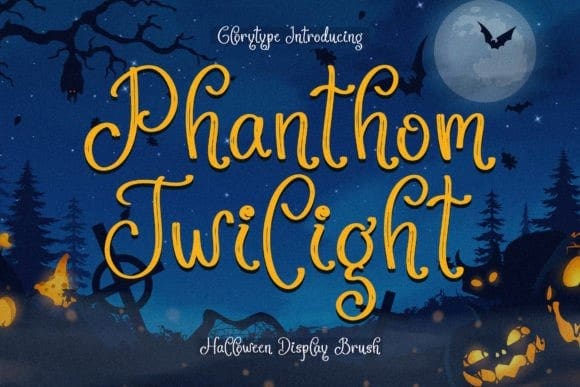
Phanthom Twilight Font
Phanthom Twilight Font – Halloween Handwritten Brush font, suitable for any projects such as logos, branding projects, homeware designs, product packaging, mugs, quotes, posters, shopping bags, t-shirts, book covers, name cards, invitation cards, greeting cards, label, photography, watermark, special events, and all your other lovely projects that need a beautiful script taste.